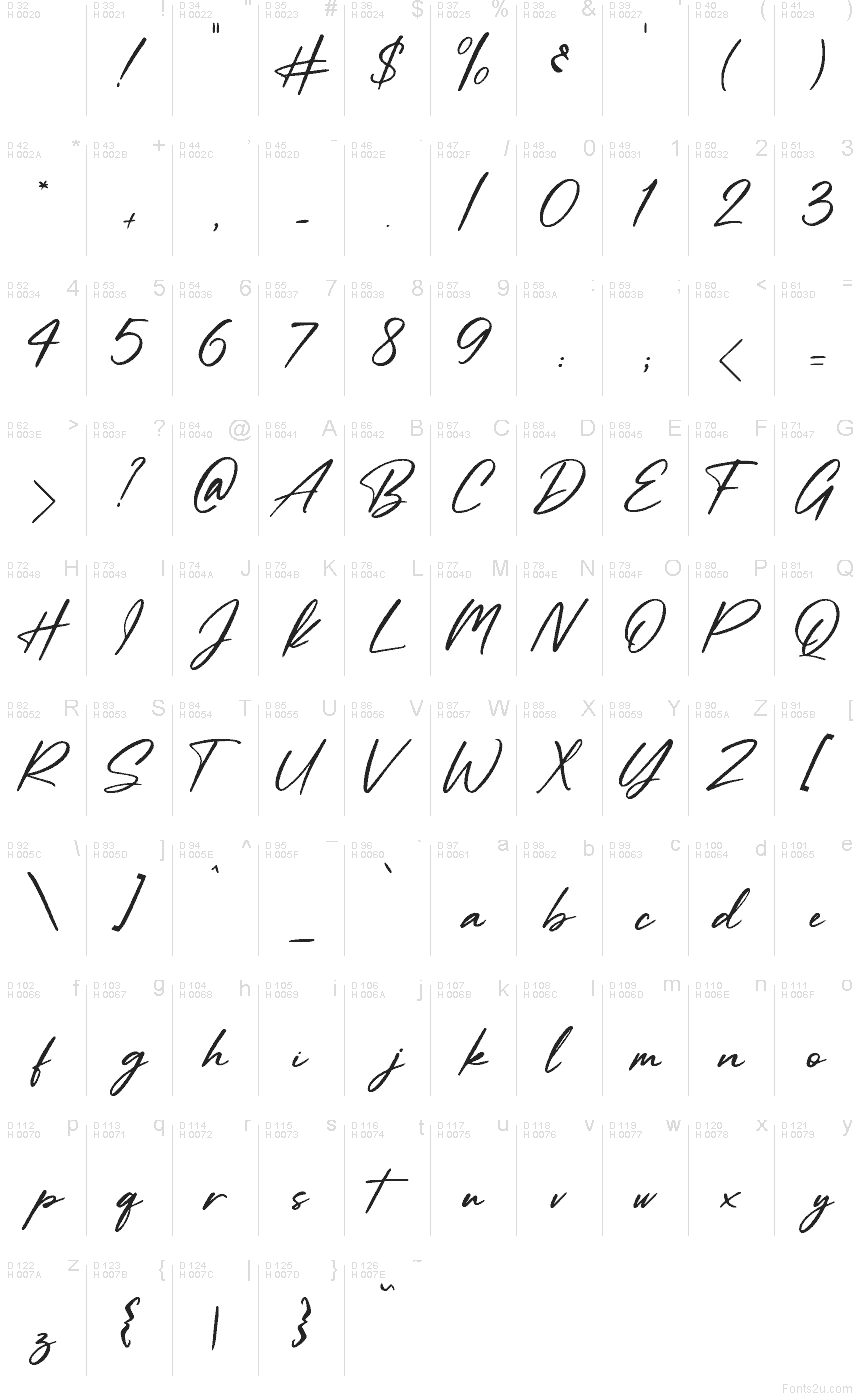
Beneath the Silence
Beneath the Silence font by BlackFridayFont FMF is a free handwritten signature typeface with a soft, inky flow and effortless slant. Long, looping connections between letters create that “signed by hand” feeling, while the slim strokes keep it chic instead of messy. It looks like it was written with a smooth gel pen on crisp paper—elegant, slightly dramatic, and full of quiet confidence.
Using Beneath the Silence, your text instantly feels more personal and high-end, making this free font a natural fit for logos, wedding stationery, product packaging, social media posts, thank-you cards, and digital signatures. The airy spacing helps short phrases and names breathe, especially at larger sizes where the graceful curves can really show. For a polished brand system, pair it with a clean geometric sans serif for body copy and keep Beneath the Silence for names, tags, and key headlines.